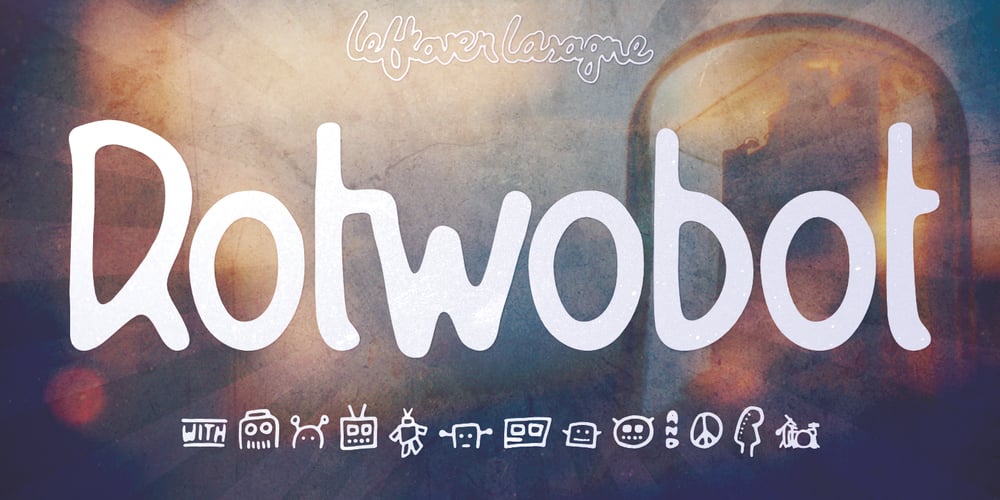
Rotwobot LL Font Family was designed by Alex Volmer and published by Leftover Lasagne. Rotwobot LL contains 1 styles and family package options. Rotwobot is a loveable modern typeface with a slight retro appeal. It comes with quite a lot of ligatures and also robots and musical instruments. The font features auto ligatures for duplicate letters, many connected letters, quite a few graphical elements that can be accessed by shortcuts (lowercase letter + number form 0-9) and smallcaps.